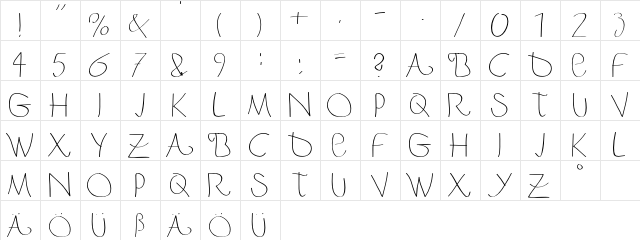
BERGER&BERGER 1234567890 Light
| Foundry | Daniel Angermann |
| Designer | Daniel Angermann |
Design Context for BERGER&BERGER 1234567890 Typeface
BERGER&BERGER 1234567890 is a composed and adaptable typeface that performs quietly and consistently across a wide range of design contexts. The delicate stroke weight brings airiness and refinement to layouts.